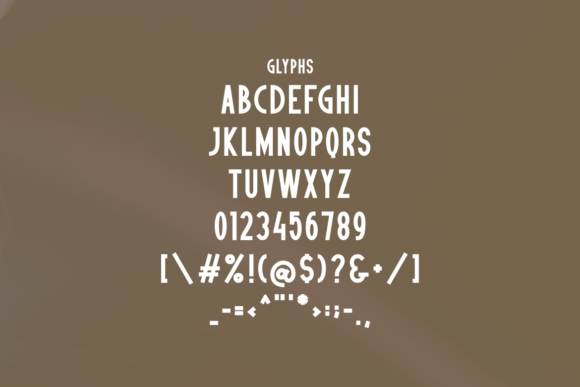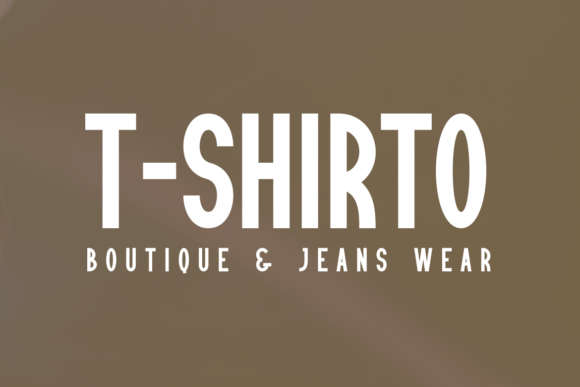
The Power of Gazzad: A Bold Display Font for Creative Projects
Have you ever been in the middle of a design project, and suddenly, you’re stuck on finding the perfect font? I recall a recent experience where I was working on a bold poster design for a local boutique, and I just couldn’t find a font that screamed confidence and style. That’s when I stumbled upon Gazzad, a bold display font that instantly elevated my design game.
What Makes Gazzad Special?
Gazzad is a versatile font, perfect for a variety of creative projects, from covers and bold prints to desktop needs, jeans, boutiques, saloons, posters, banners, and billboards. Its bold personality makes it an excellent choice for designers, crafters, and creative hobbyists looking to add a touch of sophistication to their work.
An Honest Review of Gazzad
The Good: What I Love About Gazzad ✨
- 💥 **Impactful and attention-grabbing**: Gazzad’s bold design makes it perfect for headlines, titles, and short phrases that need to stand out.
- ✅ **Highly versatile**: This font can be used for a wide range of projects, from digital designs to print materials.
- 📈 **Scalable**: Gazzad looks great in various sizes, from small captions to large billboards.
The Not-So-Good: Small Quirks or Limitations 🤔
- ⚠️ **Limited use for body text**: Due to its bold nature, Gazzad might not be the best choice for lengthy paragraphs or body text.
- 🤔 **Some characters may appear too condensed**: When using certain characters or glyphs, they might appear a bit too condensed, affecting overall readability.
The Backstory Behind Gazzad
Gazzad was designed with the intention of creating a bold and eye-catching font that could be used across various mediums. The designer aimed to craft a font that exudes confidence and style, making it perfect for headlines, titles, and short phrases. While the real story behind Gazzad might be fictional, its impact on designs is undeniable.
Q: What type of projects is Gazzad best suited for?
A: Gazzad is ideal for projects that require bold and eye-catching text, such as posters, billboards, magazine covers, and boutique branding.
Q: Can I use Gazzad for body text or lengthy paragraphs?
A: While Gazzad can be used for short paragraphs, it’s not recommended for lengthy body text due to its bold nature.
Q: Is Gazzad a scalable font?
A: Yes, Gazzad looks great in various sizes, from small captions to large billboards.